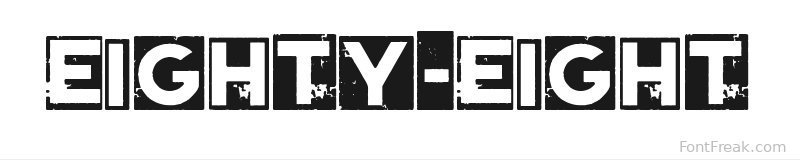
Eighty-Eight
About Eighty-Eight
Eighty-Eight by woodcutter Manero is a striking display font that embodies a unique blend of rugged charm and modern aesthetics. This typeface, categorized as a decorative font, features bold, block-like letters with an intriguing distressed texture that gives it an artisanal feel. The stroke weight is consistent, offering a sturdy presence, while the contrasting elements created by the uneven surfaces add character and depth. The spacing between letters is well-calibrated, ensuring legibility while retaining a visually captivating layout.
Eighty-Eight is an excellent choice for a variety of creative projects. It shines in applications such as wedding invitations, where its distinctive style can add a touch of personality and elegance. Additionally, this font works wonderfully for movie posters, providing a bold statement that captures attention. Restaurant menus can also benefit from the font’s rugged appeal, making it suitable for establishments with a modern or rustic theme. Content creators will find this typeface perfect for social media graphics, allowing their posts to stand out in crowded feeds.
Targeted towards graphic designers, small business owners, and content creators, Eighty-Eight offers a versatile option for those looking to make a memorable impression. Its freeware license makes it accessible for personal and commercial projects, enhancing its appeal to a broad audience.
What sets the Eighty-Eight font apart is its ability to convey a sense of authenticity and craftsmanship, making it a compelling choice for anyone seeking to infuse their work with distinctive style. With its unique visual characteristics and diverse application potential, the Eighty-Eight font free download is a valuable addition to any designer's toolkit.